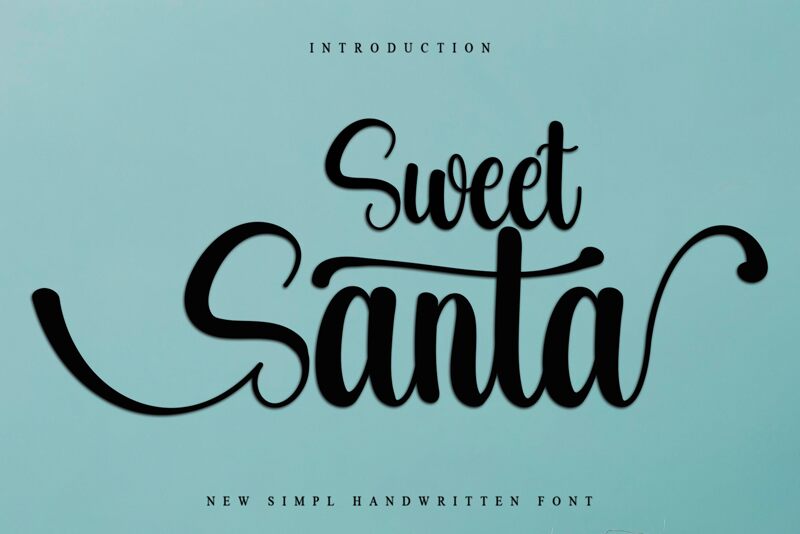
Sweet Santa font
Sweet Santa
This font retains a classy calligraphic influence while feeling contemporary and fresh. Its versatility makes it perfect for a wide range of creative projects, including letterheads, titles, and stationery.